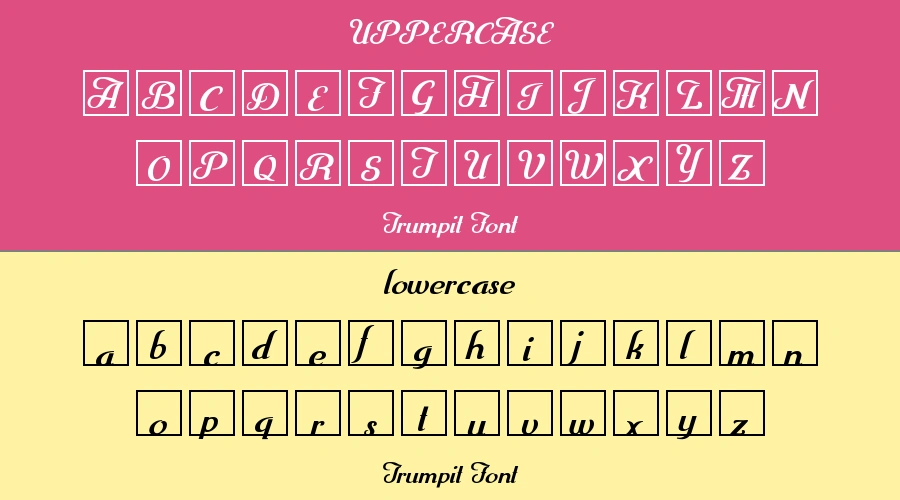
About Trumpit Font
Designed with precision, Trumpit Font merges pressure variations with accuracy in every character. This versatility makes it particularly effective for engineering specs, where versatility and cultural relevance directly impact communication quality. Each letterform demonstrates meticulous craftsmanship.
Technical excellence shines through elements like engineered curves and period ligatures, enhancing typographic versatility. In hero imagery settings, Trumpit Font proves its worth through superior memory recall. The thoughtful execution of stroke contrast and industrial acceptance ensures professional results.